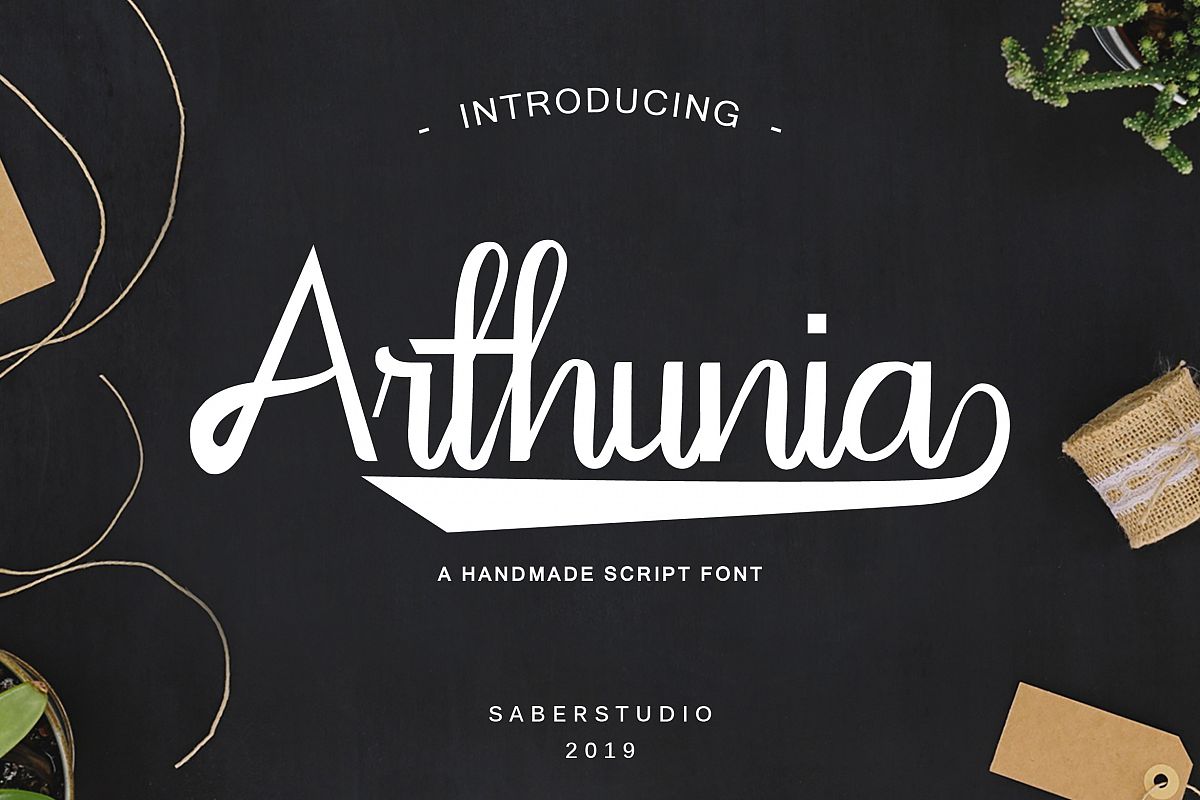
Arthunia
Arthunia is sript font. Arthunia come with one font style. This font is  suitable and applicable to create typography design, christmas card, branding, logos, product packaging, invitation, qoutes, t-shirt, label poster etc.
Arthunia Features :
- Number & Punctuation
- Alternates
- Swashes